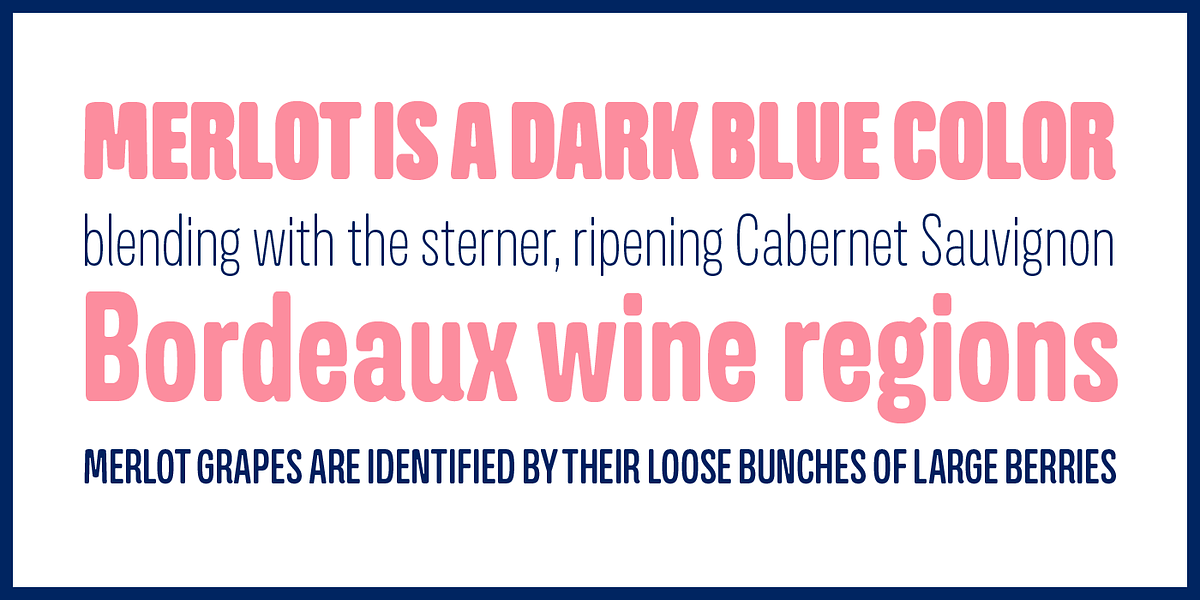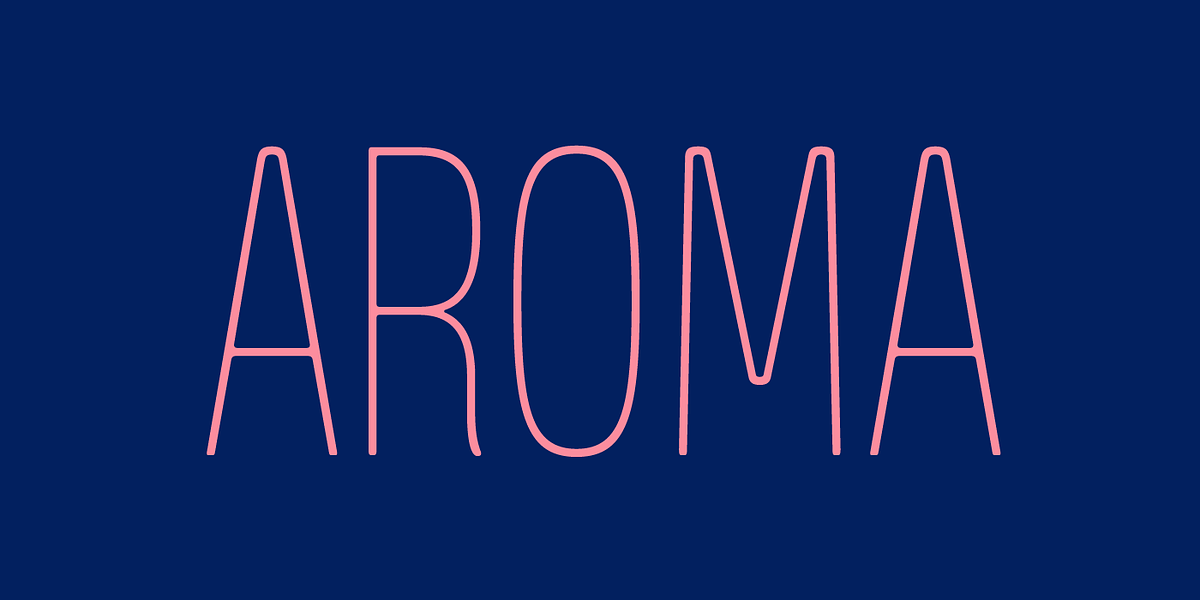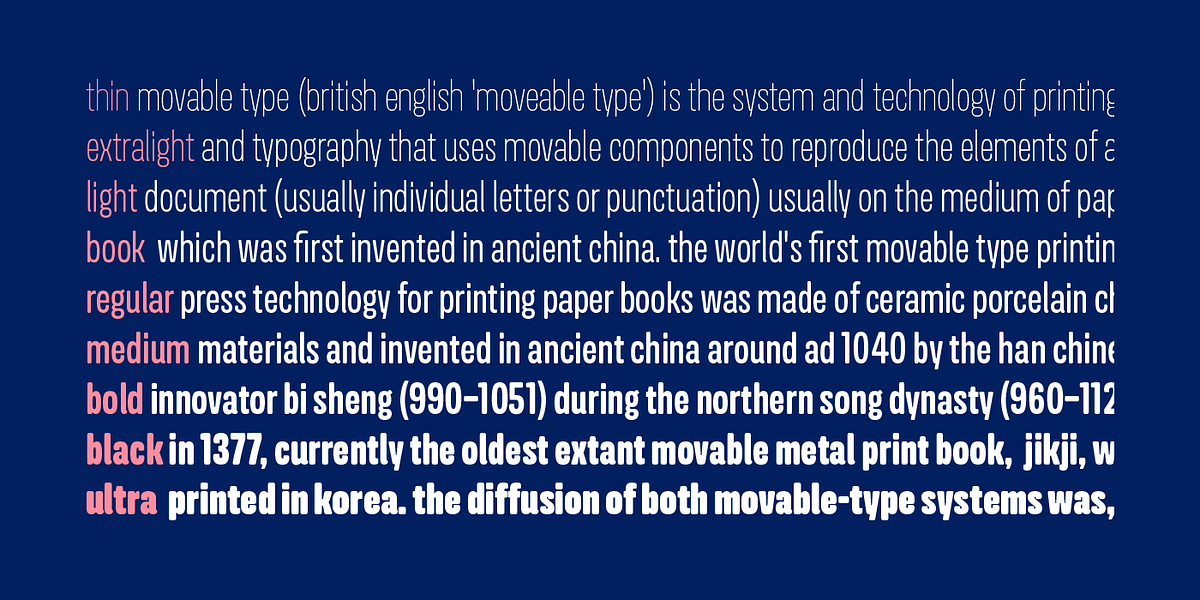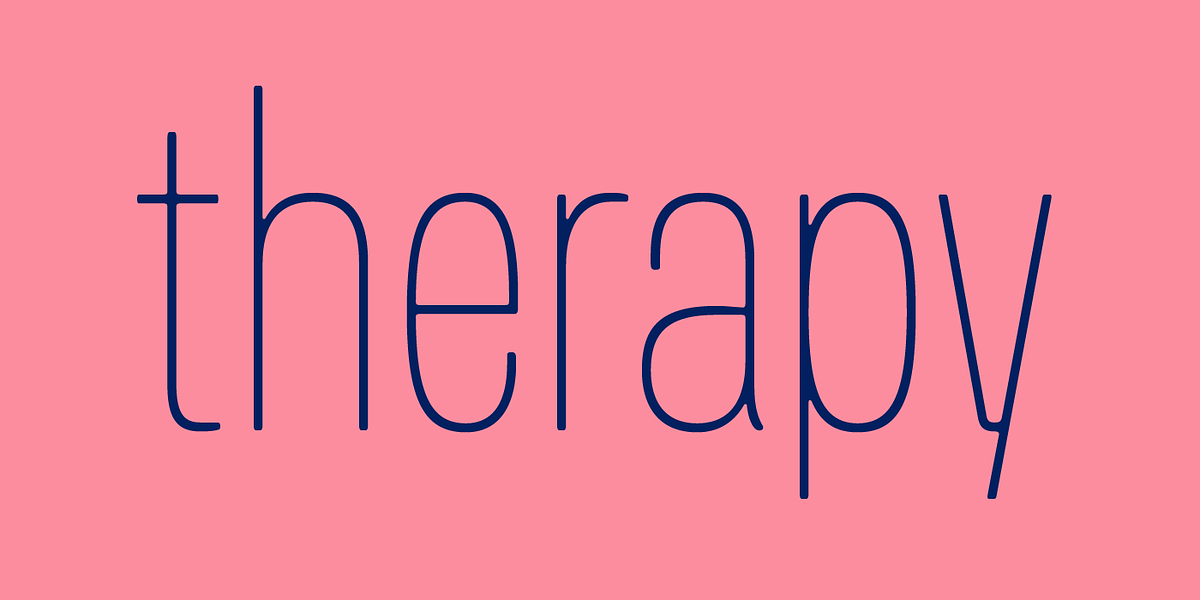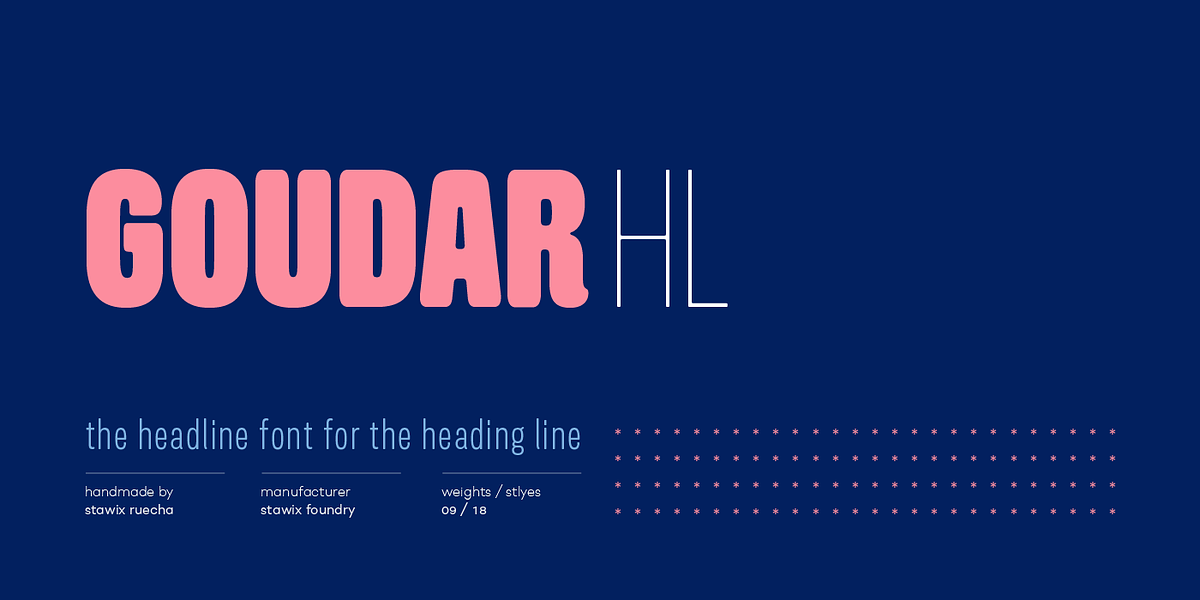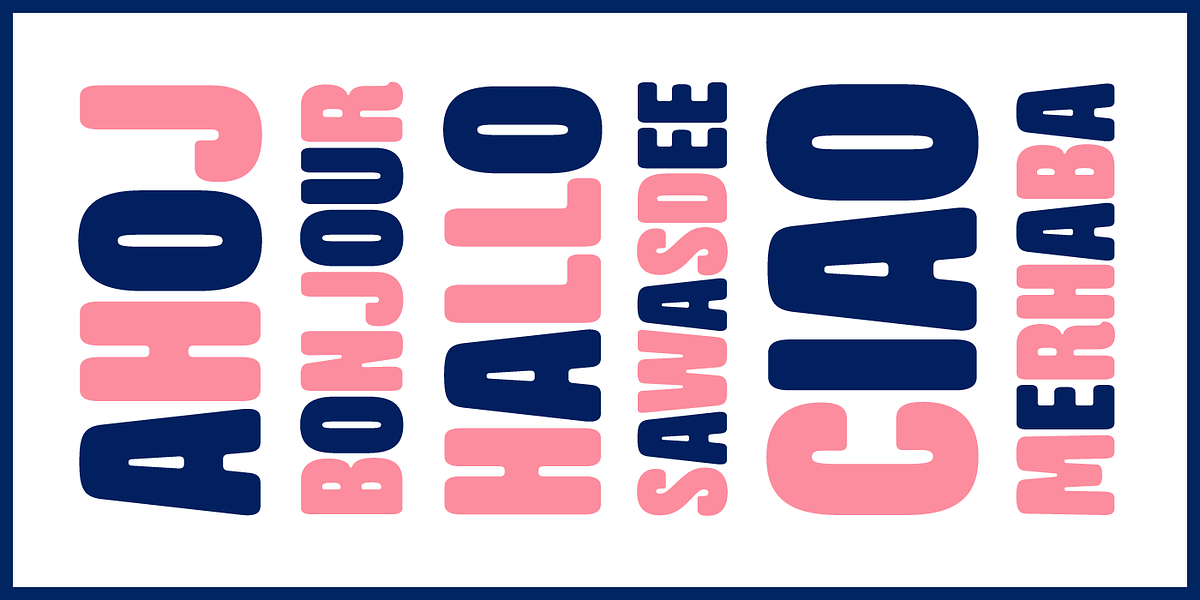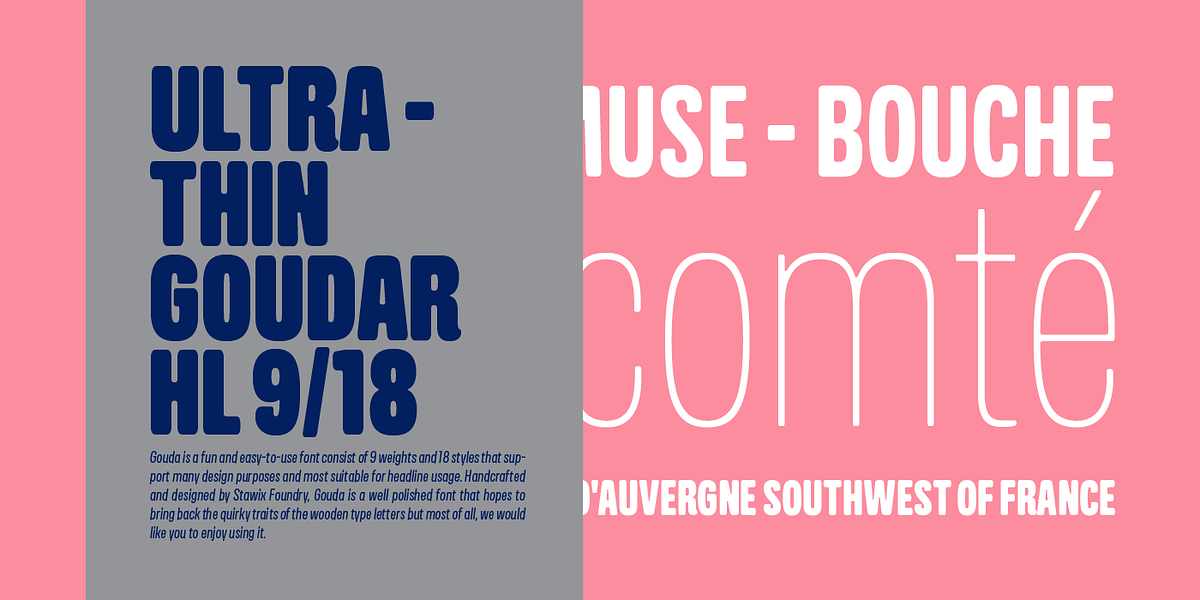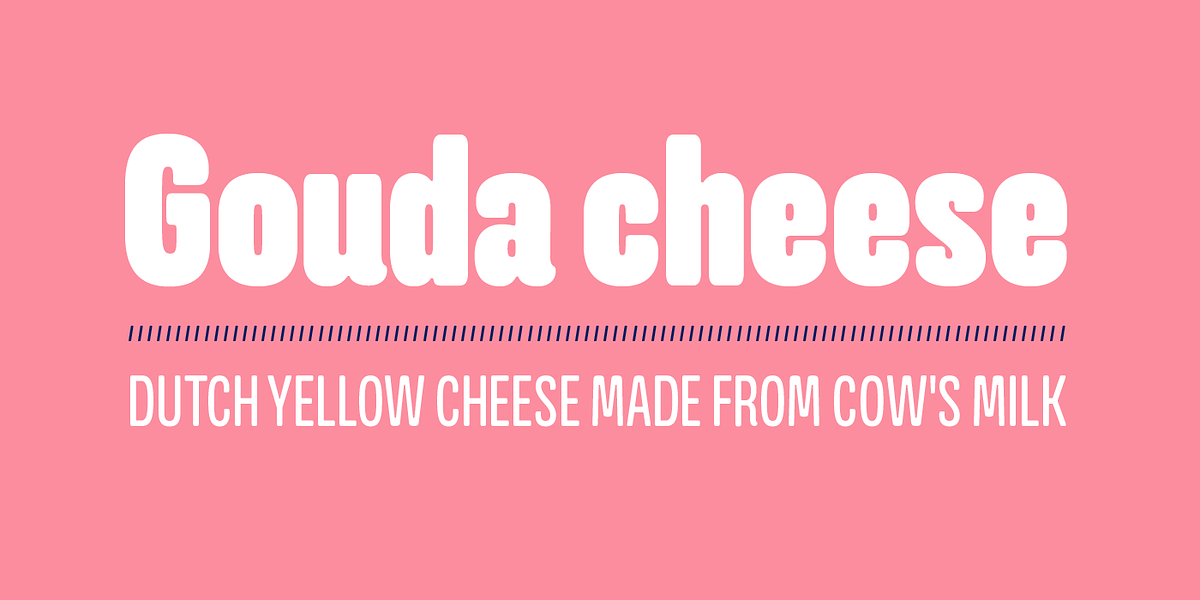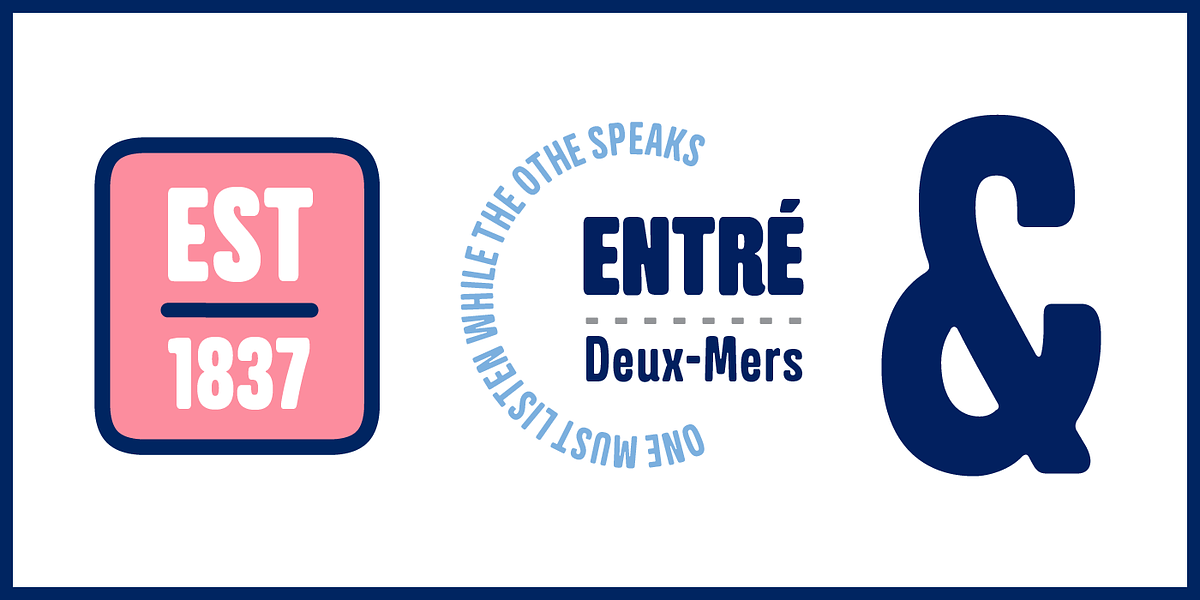
Goudar HL
Goudar is a humanist sans serif font designed by Stawix Foundry. It draws inspiration from the aesthetics of wooden type letterpress, aiming to capture its quirky charm while adding a modern touch. The font comes in nine weights and 18 styles, making it versatile for various design purposes. Its soft and playful personality makes it particularly well-suited for headlines.